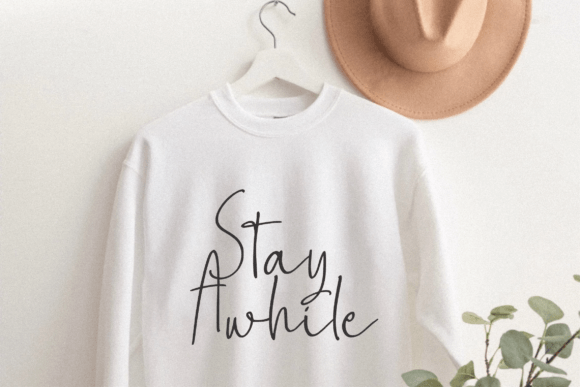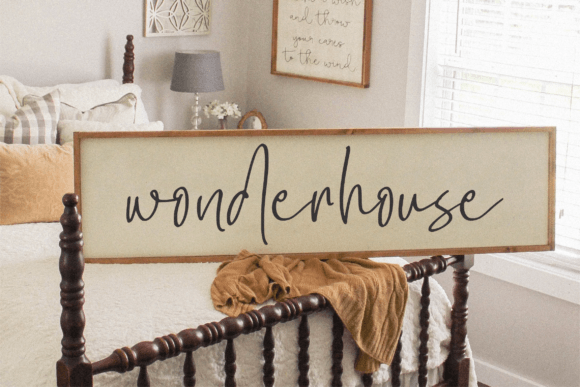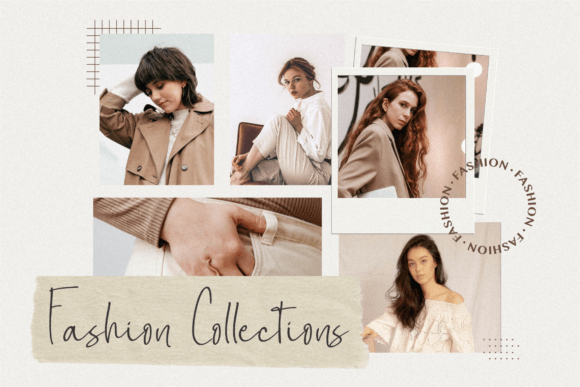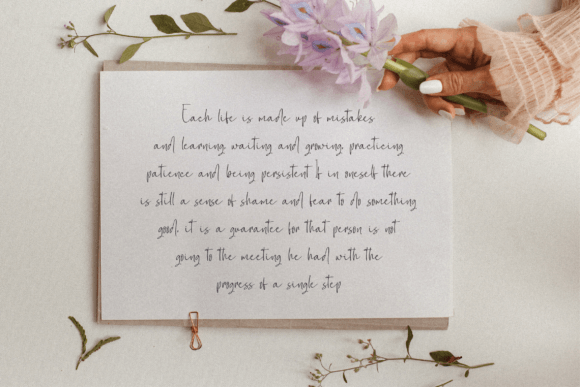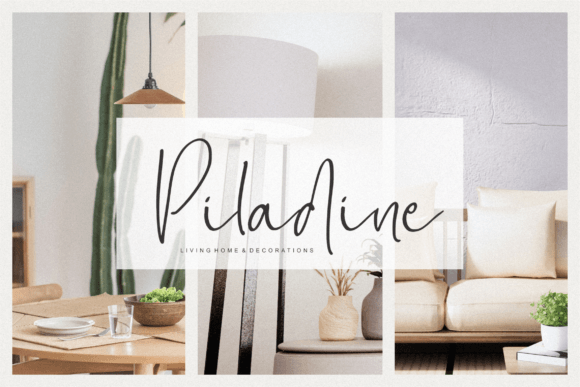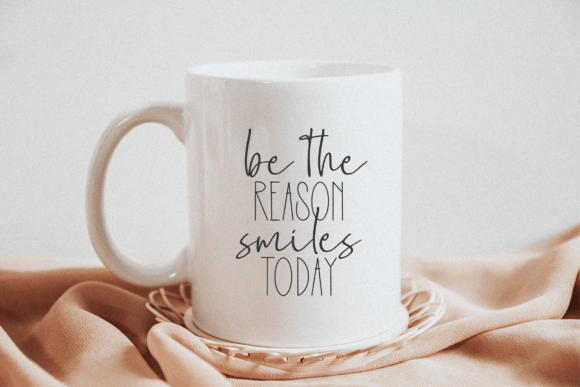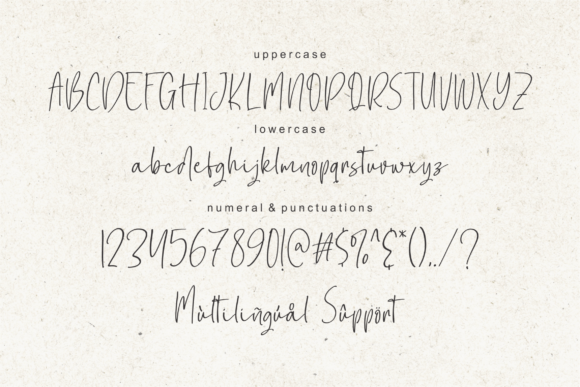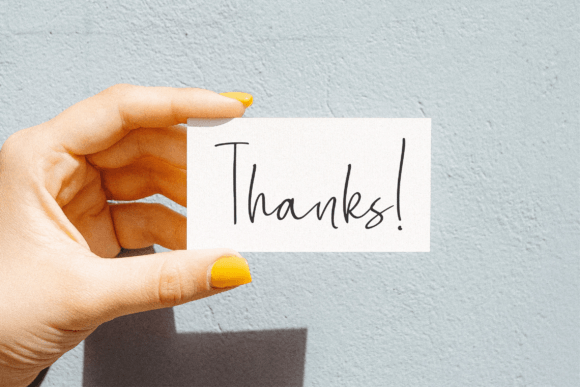
Secondwhy Font
About Secondwhy Font
The Secondwhy Font Download is a modern handwritten typeface designed for projects that need elegance and creativity. With its flowing strokes and stylish look, Secondwhy blends a personal handwritten feel with a modern design approach. This balance gives it a versatile and polished character that makes it stand out across different types of projects.
Because of its natural rhythm, Secondwhy brings warmth and charm while remaining highly usable. It feels personal enough for invitations or greeting cards, yet modern enough for branding and digital design. Whether you’re creating product packaging, wedding stationery, logos, magazines, or social media graphics, this font adapts beautifully and adds personality to your work.
Features of Secondwhy Font
When you download the Secondwhy Font, you get access to design features that make it both creative and functional:
• Modern handwritten style with flowing, natural strokes
• Elegant rhythm and balance for versatile applications
• Full character set including uppercase, lowercase, numbers, and punctuation
• Readable yet stylish design perfect for digital and print
• Adaptability across professional branding and personal projects
Best Uses for Secondwhy Font
The Secondwhy Font Download is ideal for a wide range of design applications. For example, it looks stunning on product packaging, giving labels and boxes a modern and handcrafted identity. It also performs well in branding projects, helping logos and taglines appear unique and approachable.
In addition, Secondwhy is perfect for wedding invitations, greeting cards, and event stationery, where its handwritten elegance adds romance and sophistication. It also shines in magazines, posters, and social media graphics, creating content that is eye-catching and stylish. Furthermore, it enhances DIY projects, scrapbooks, and personal designs, adding charm and individuality.
Why Choose Secondwhy Font
Designers prefer the Secondwhy Font Download because it combines a modern handwritten touch with clear readability. Many handwritten fonts lean too casual or too polished, but Secondwhy strikes a balance that works in both personal and professional contexts.
By offering a versatile style, this font allows creators to design confidently across branding, packaging, invitations, and digital platforms. Its adaptability makes it an essential tool in any font library, especially for designers who want their work to look authentic and stylish.
The Secondwhy Font Download is a modern handwritten typeface that blends elegance, readability, and versatility. With its flowing strokes and handcrafted charm, it is perfect for packaging, branding, magazines, weddings, social media, and more.